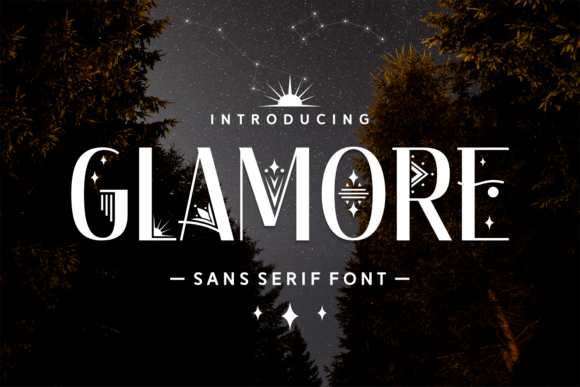
Step into the realm of Glamore, a sans serif font family that spells elegance and sophistication. This font radiates beauty in its simplicity, captivating design, and versatility. Its uppercase letters are adorned with enchanting decorative motifs, adding a touch of whimsical charm and uniqueness to your creative projects.
Welcome to an enchanting realm of creativity, where your words take on a new life of elegance with Glamore. Discover a font that captures the essence of modern sophistication while maintaining a timeless charm. With its captivating glyphs and pristine lines, Glamore is a font that leaves an indelible mark on any design.
Unlock the endless possibilities that await you with Glamore. Whether it's designing a captivating logo that stands out from the crowd, creating an unforgettable invitation that reflects your special occasion's charm, or crafting heartfelt greeting cards that convey your warmth, Glamore is your perfect companion. Its beauty knows no bounds, adding a regal touch to fabric prints and infusing your creative projects with a touch of timeless allure.
Explore the world of typography with Glamore, a font that invites you to unleash your imagination. Allow your creativity to flow effortlessly as you design with this versatile masterpiece. Create stunning social media posts that resonate with your audience, captivating flyers that command attention, and website designs that exude professionalism. Glamore is the font that adapts to your every need, enhancing your designs with effortless grace.
Do not let this moment pass you by. Embark on this typographic journey with Glamore and unveil the endless possibilities that await you. Immerse yourself in a world of creativity and innovation, where your designs transcend the ordinary and leave a lasting impression. Make Glamore a part of your design arsenal and watch as your projects blossom into masterpieces. Its beauty and versatility will undoubtedly captivate your audience and leave them in awe.